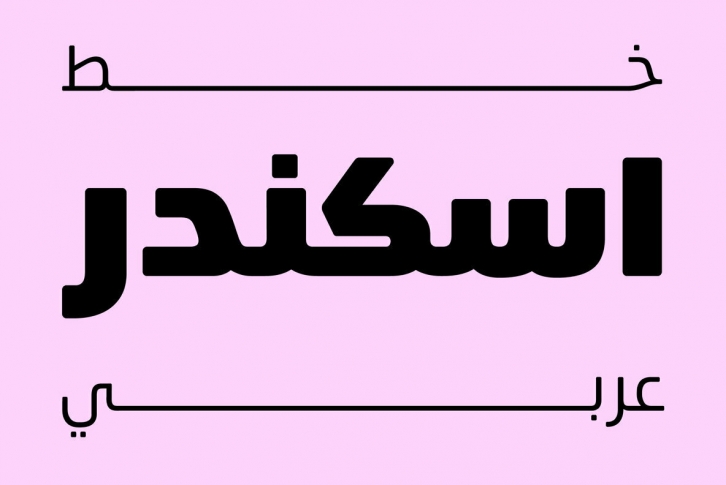
Eskander the first version designed at 2018, and re-designed at 2021. Eskander is Arabic typeface with rounded edges and friendly. For web, digital applications and prints, supported languages (Arabic, Persian and Urdu). Eskander is a trademark of Protype Fonudry Ltd, Design by Ibrahim Hamdi.